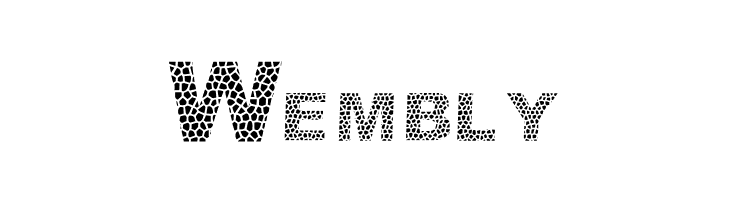
Blackrose Font
- Font: Blackrose
( Fonts by Dieter Schumacher )
A bold, decorative font with a mosaic-like pattern, ideal for striking visual designs.